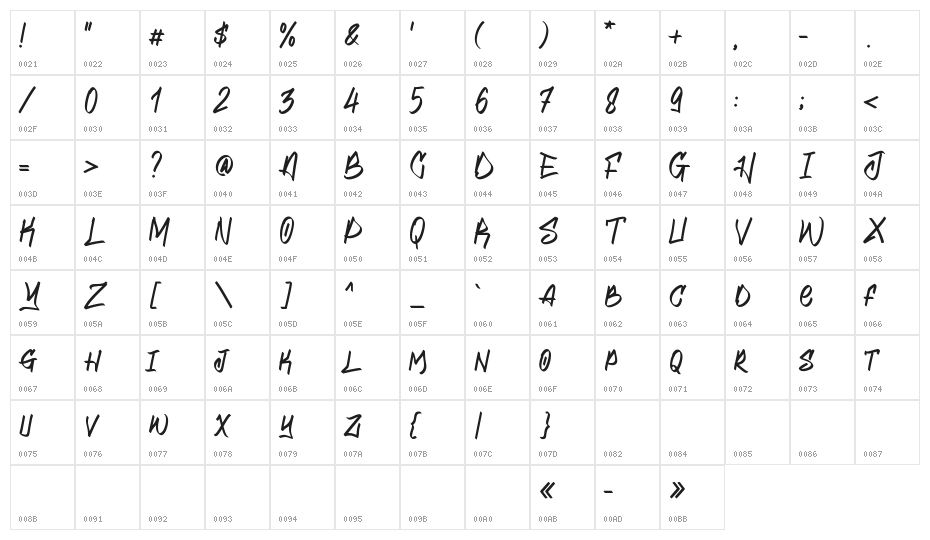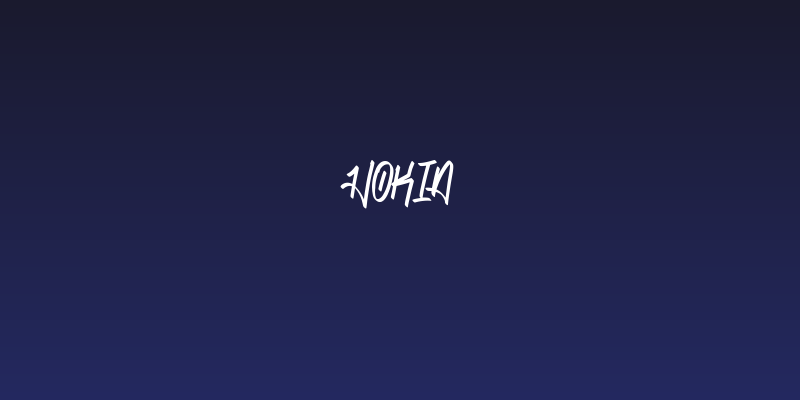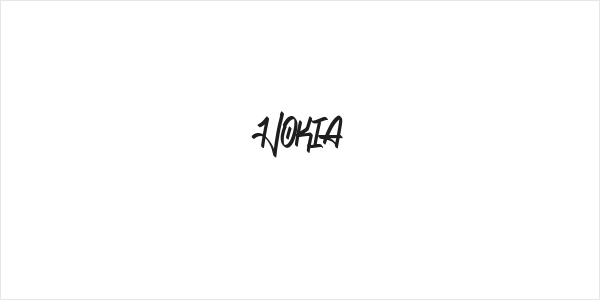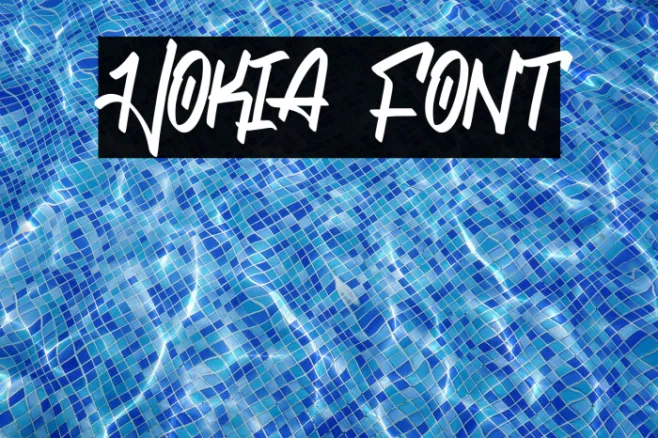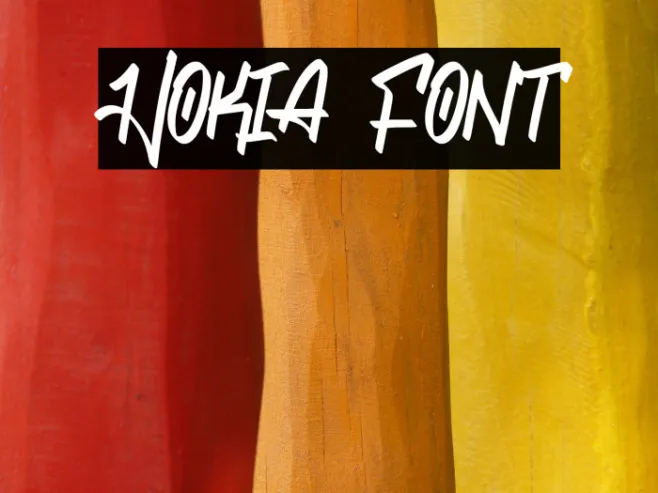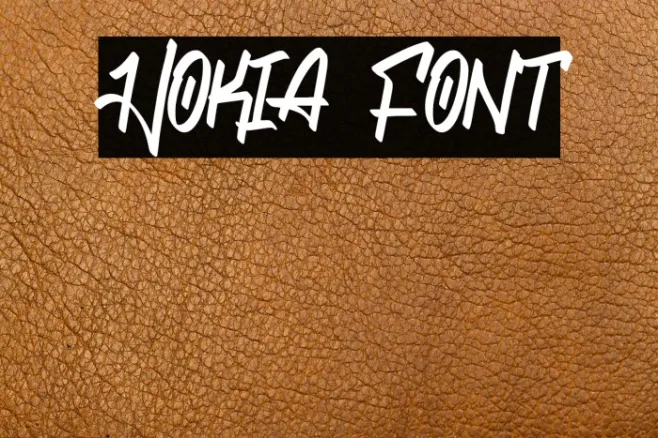
Hokia Font
Hokia Description
This font exudes a bold and energetic style, characterized by its dynamic and angular letterforms. The strokes are thick and expressive, giving it a graffiti-like appearance that is both modern and edgy. The uppercase and lowercase letters maintain a consistent style, with sharp angles and a sense of movement. Numbers and special characters follow the same design ethos, ensuring a cohesive look across all text. The overall impression is one of creativity and rebellion, making it ideal for projects that require a strong visual impact.
| Proposed Projects | Ideal for street art designs, urban-themed posters, music album covers, and edgy branding projects. |